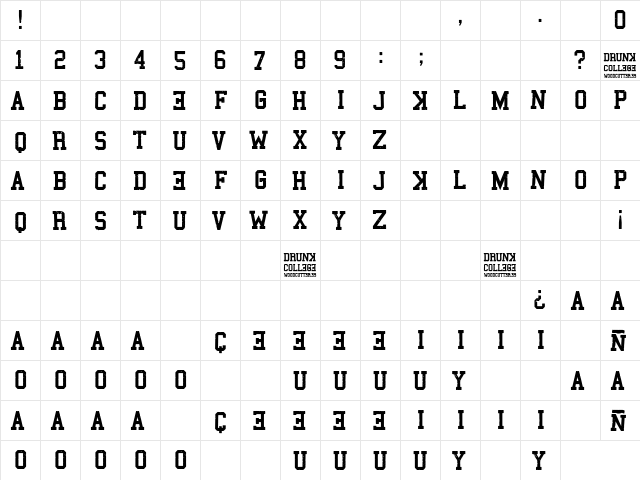
Drunk College Regular
Design Context for Drunk College Typeface
Drunk College has the bold swagger of sports branding: strong, assertive letterforms designed to dominate headlines and jerseys alike.
Built for sports team identities, athletic apparel, event posters, and high-energy promotional material.
Pro Tip: Drunk College thrives on contrast — try it large, bold, and tight against a clean background for maximum visual impact.